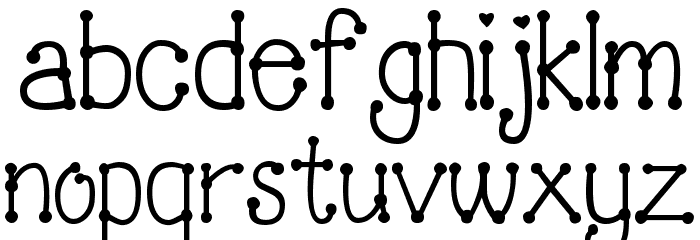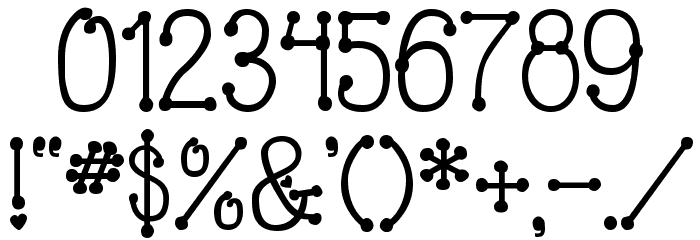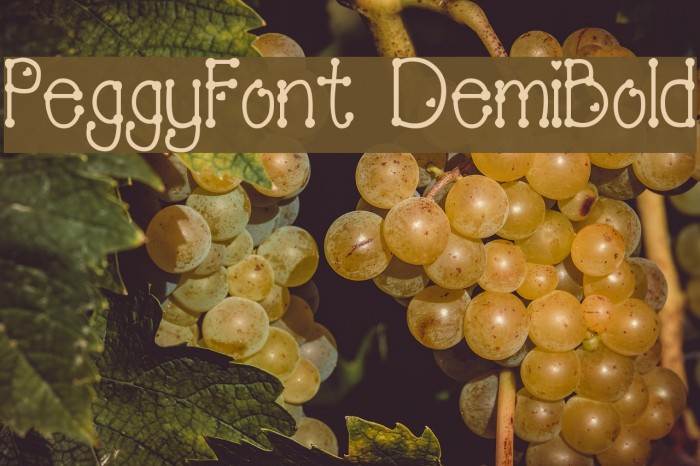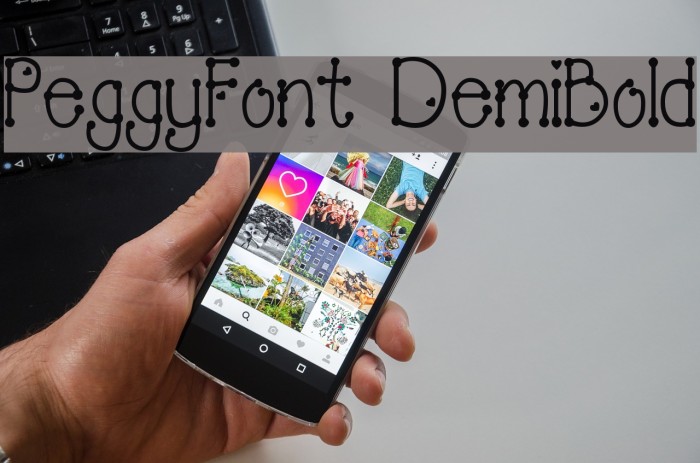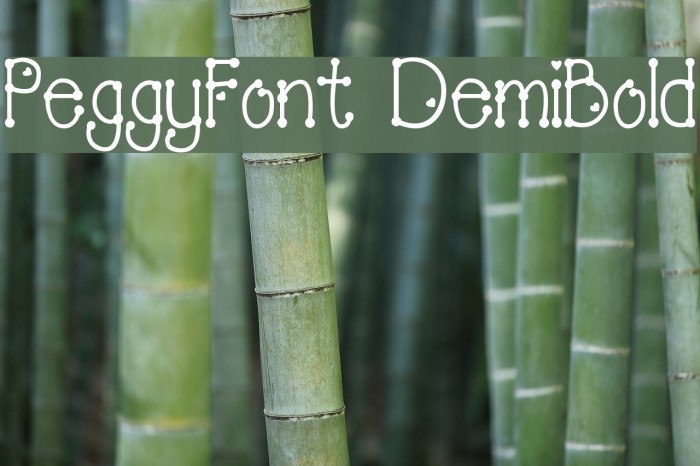
PeggyFont DemiBold Font
This font features a playful and whimsical design with rounded, bubble-like serifs and terminals. The characters are connected with small dots, giving it a unique and decorative appearance. The uppercase and lowercase letters maintain a consistent style, with a slight variation in the stroke width that adds to its charm. The numbers and special characters follow the same playful theme, making it suitable for creative and informal projects. The overall look is both modern and fun, perfect for capturing attention.
A playful, decorative font with rounded serifs and dot connections.
- Proposed Projects: Ideal for children's books, playful branding, party invitations, and creative posters.
- Overall Style: Playful, Modern